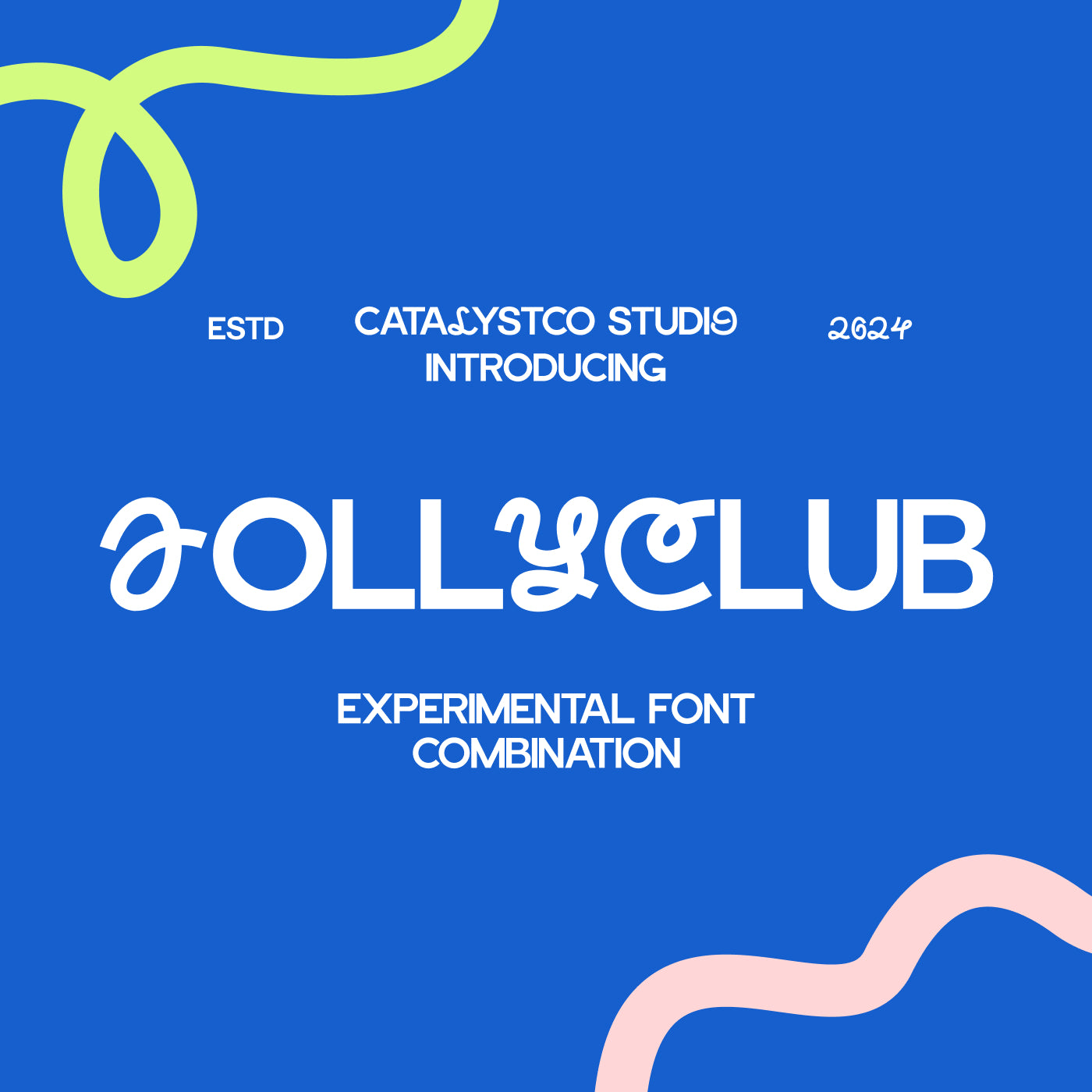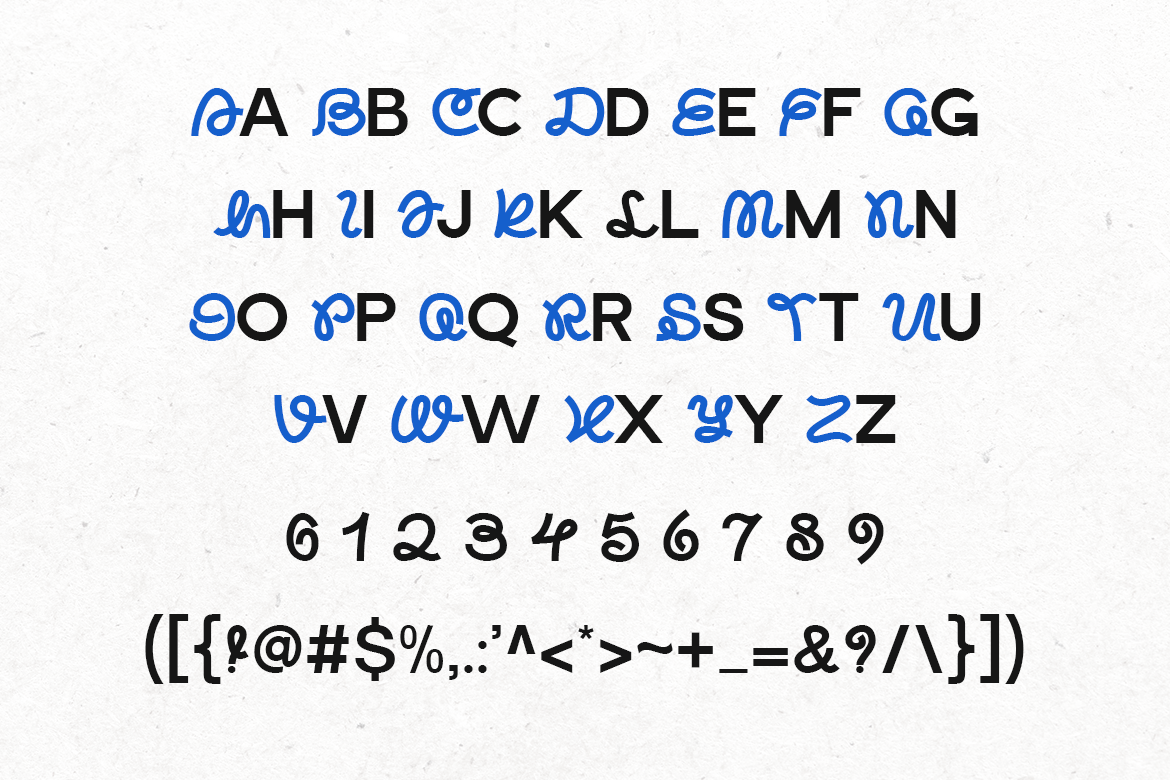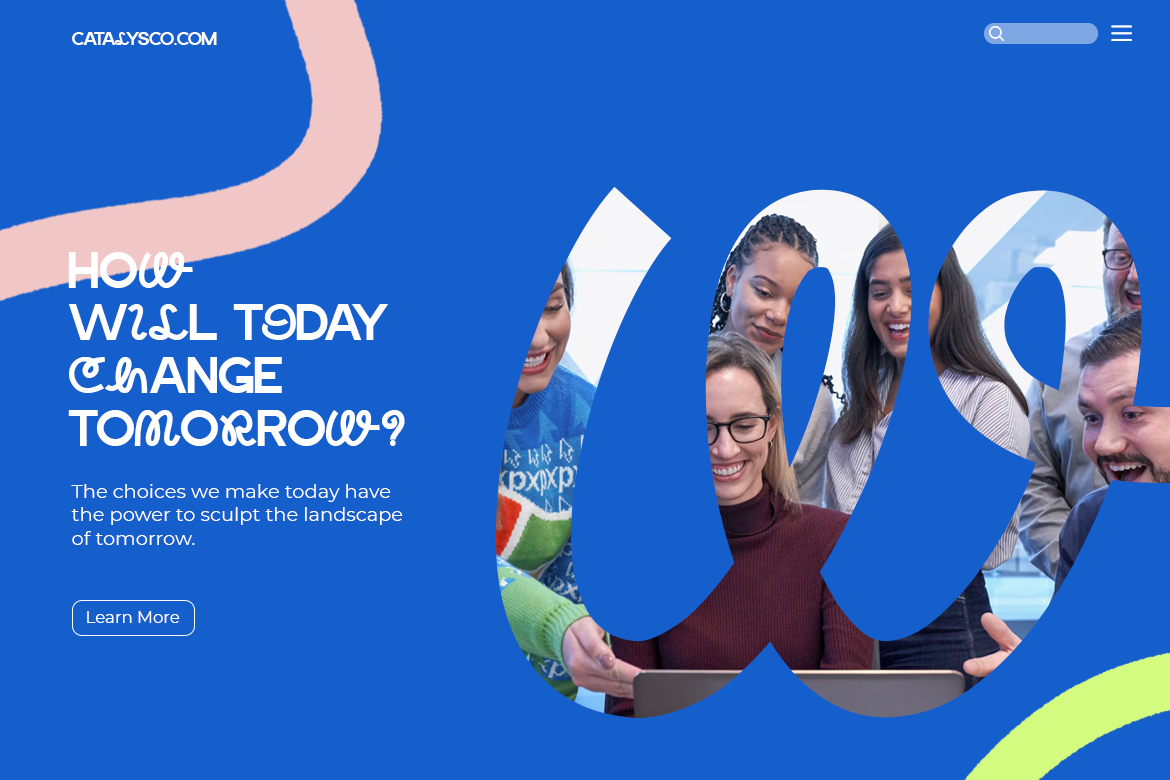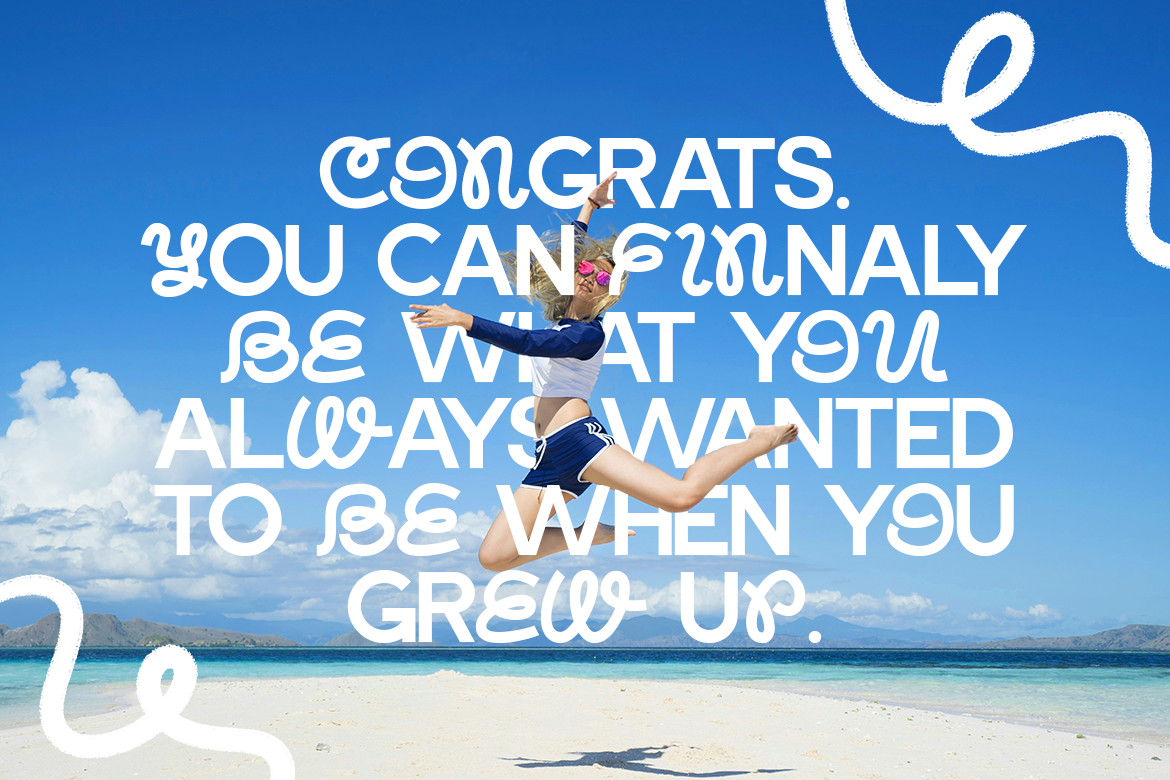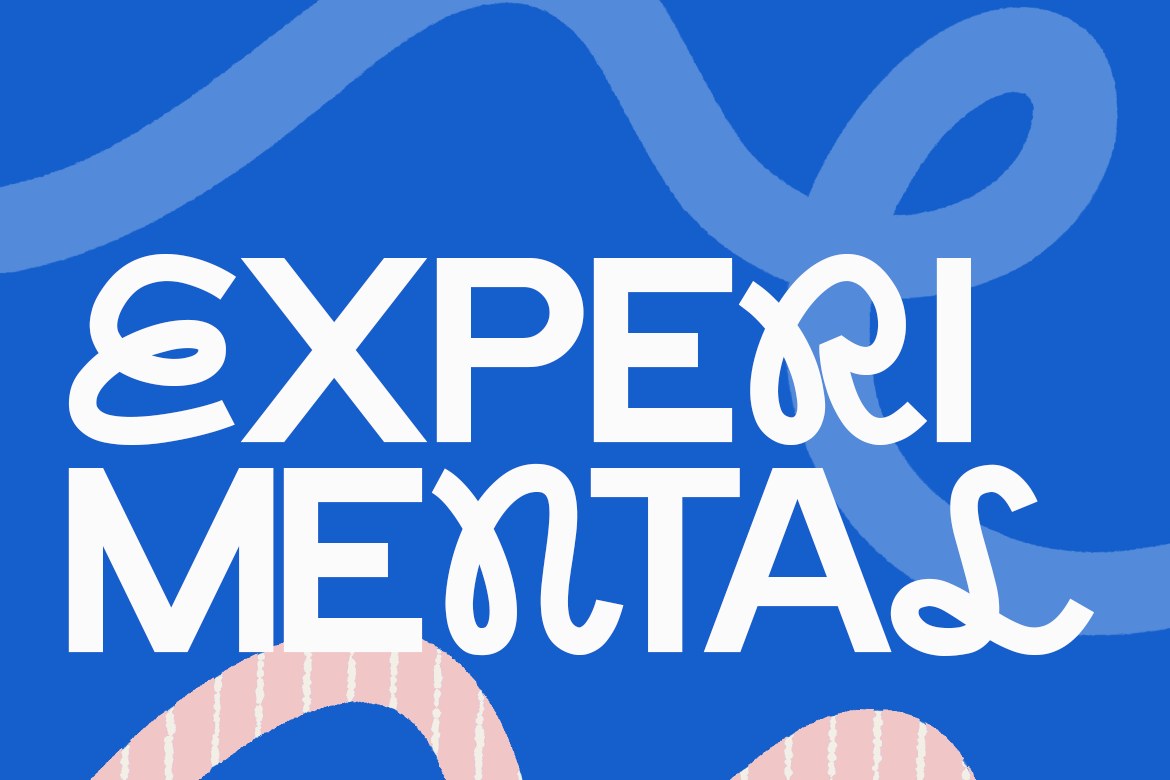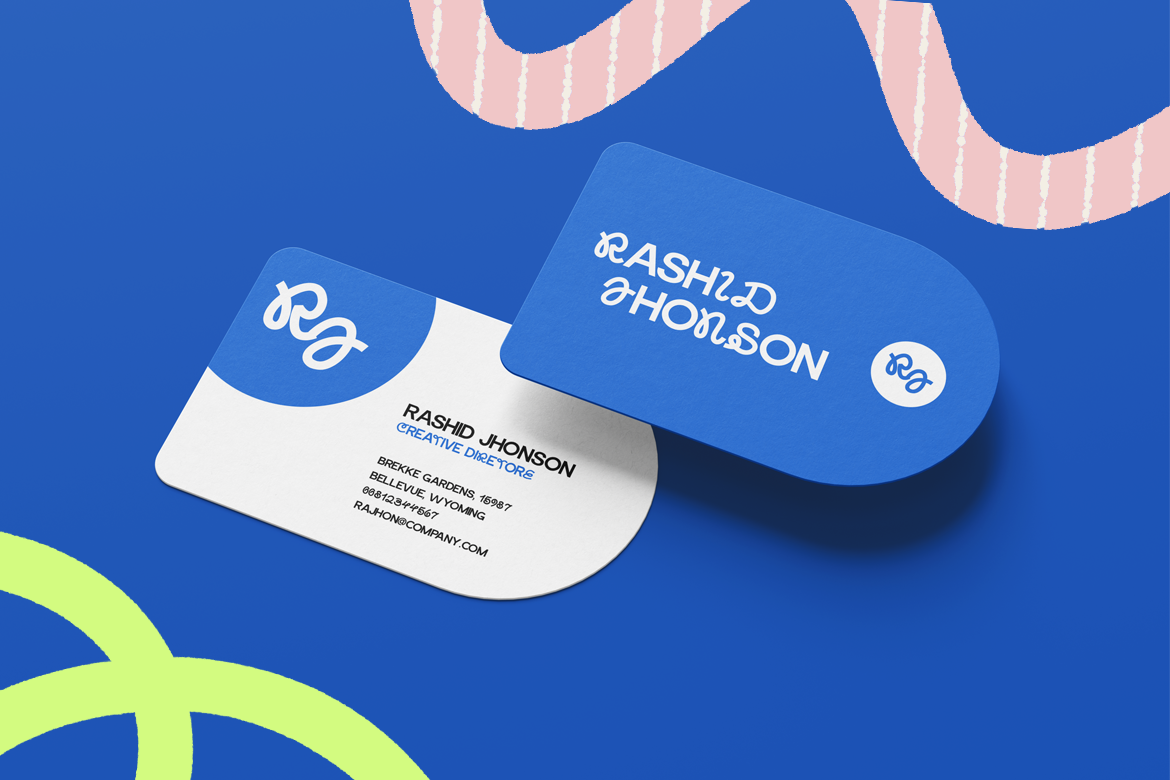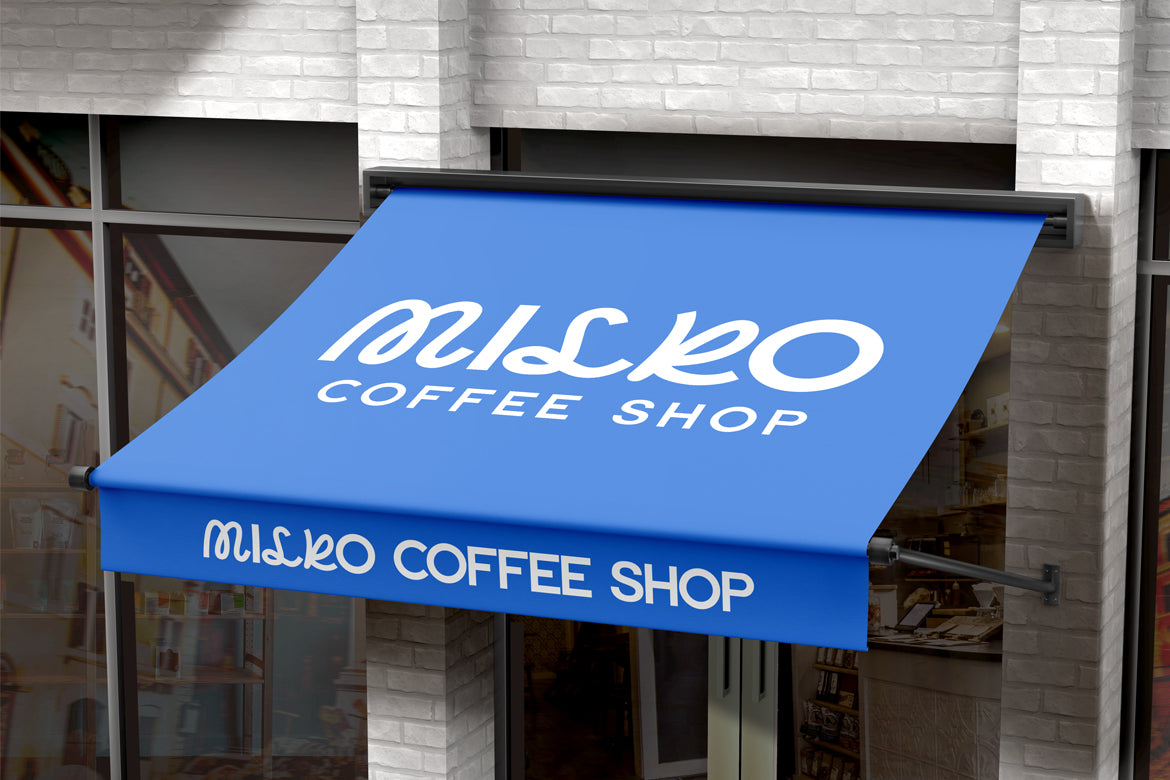
Jolly Club Experimental Combination Font
Jolly Club Experimental Font Combination is an experimental font combo that brings playful energy and bold modernity into a single dynamic display typeface. Its core essence lies in the synergy between solid, modular sans-serif letters and expressive, looping alternates resulting in a hybrid identity that’s both quirky and clean. With its loud personality and upbeat rhythm, Jolly Club is built to shine in Instagram visuals, branding for children’s or youth-centric products, and creative editorial covers. The contrasting mix of geometric structure and handcrafted calligraphic flair gives it a unique aesthetic that instantly draws attention.
Each letter is designed with intentional distinction standard characters are clear and bold, while alternates (highlighted in blue) introduce funky, ribbon-like strokes. This makes it ideal for logo design, social media graphics, packaging, headline posters, and even indie fashion campaigns. Jolly Club Suitable for Instagram branding, Children’s product packaging, Event flyers & posters, Indie fashion campaigns, Magazine & zine titles, Youth-focused content, Merch designs & stickers, Bold brand logos, Website hero titles, Social media promo graphics
Jolly Club Experimental Combination Font is a display typeface combining modular sans-serif letters with looping calligraphic alternates, available in TTF, OTF, and WOFF formats. It includes uppercase and lowercase characters, ligatures, alternates, numerals, and punctuation.